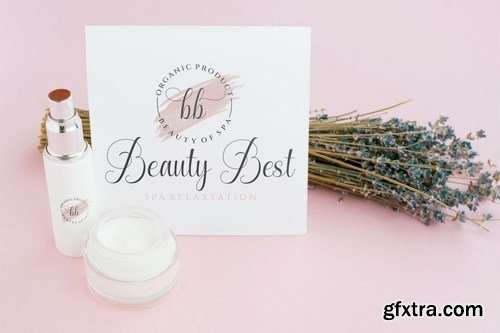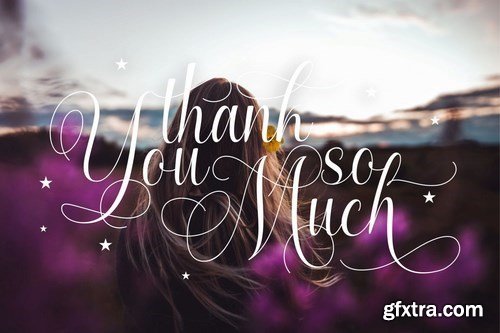
Milandia is a modern calligraphy font, It is perfect for branding,logo, wedding invites, every other design which needs a handwritten romantic touch. Decorative and handwritten or creative style script font for your new projects. With multi language support and lot of stylistic alternates & swashes.